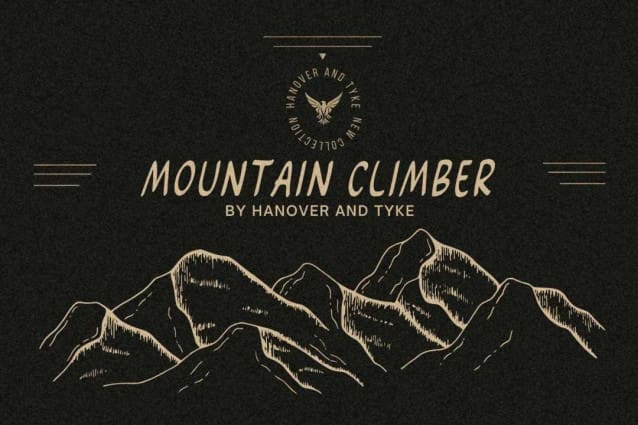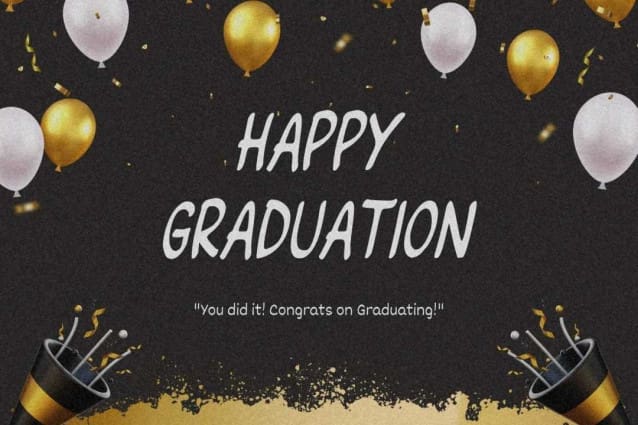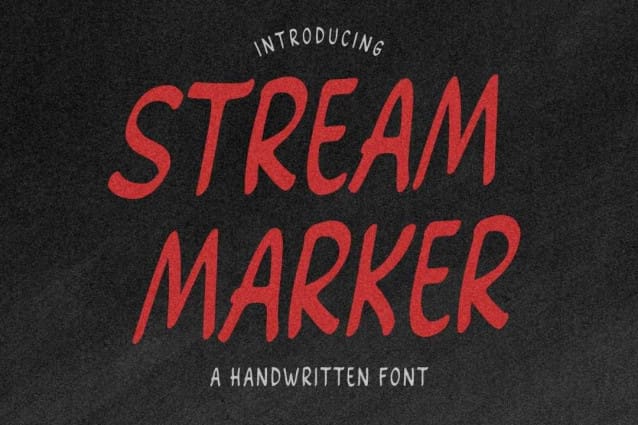
Stream Marker Font
Stream Marker Font, it would be a perfect choice to design posters, affiches, logos, t-shirt and magazine prints, eye-pleasing typographic designs and more.